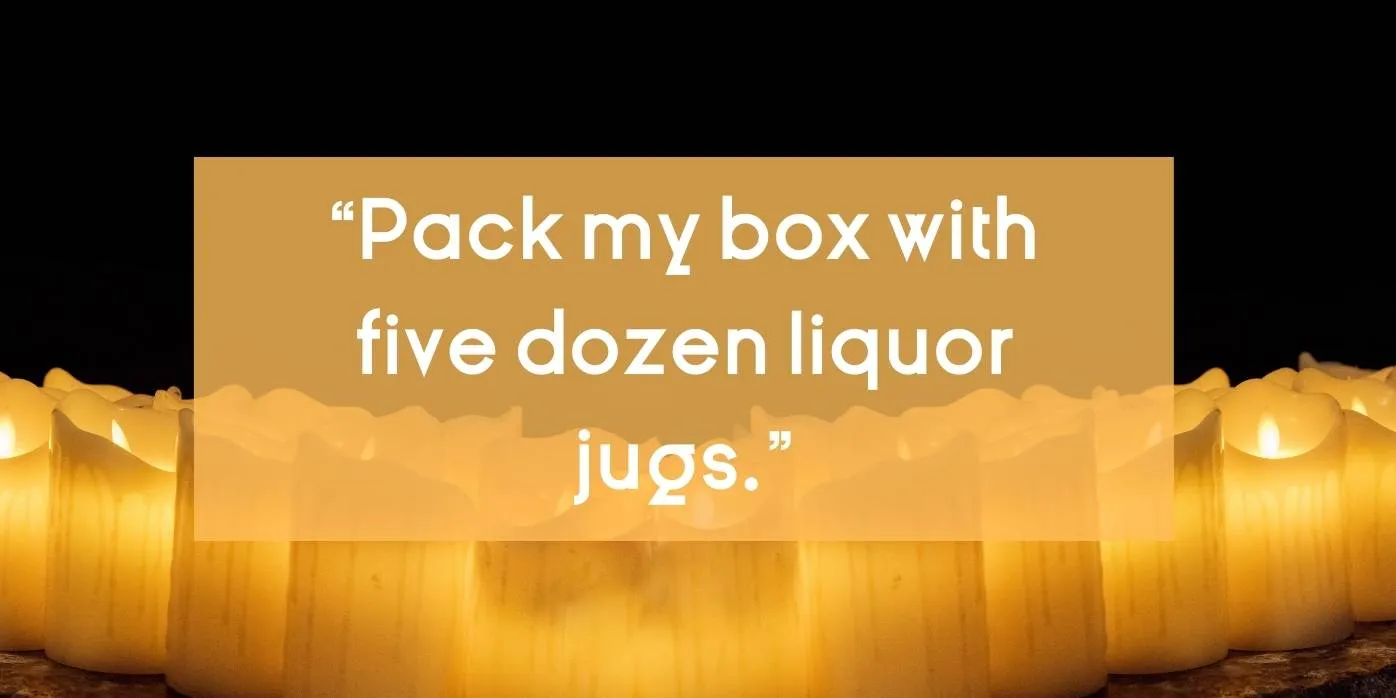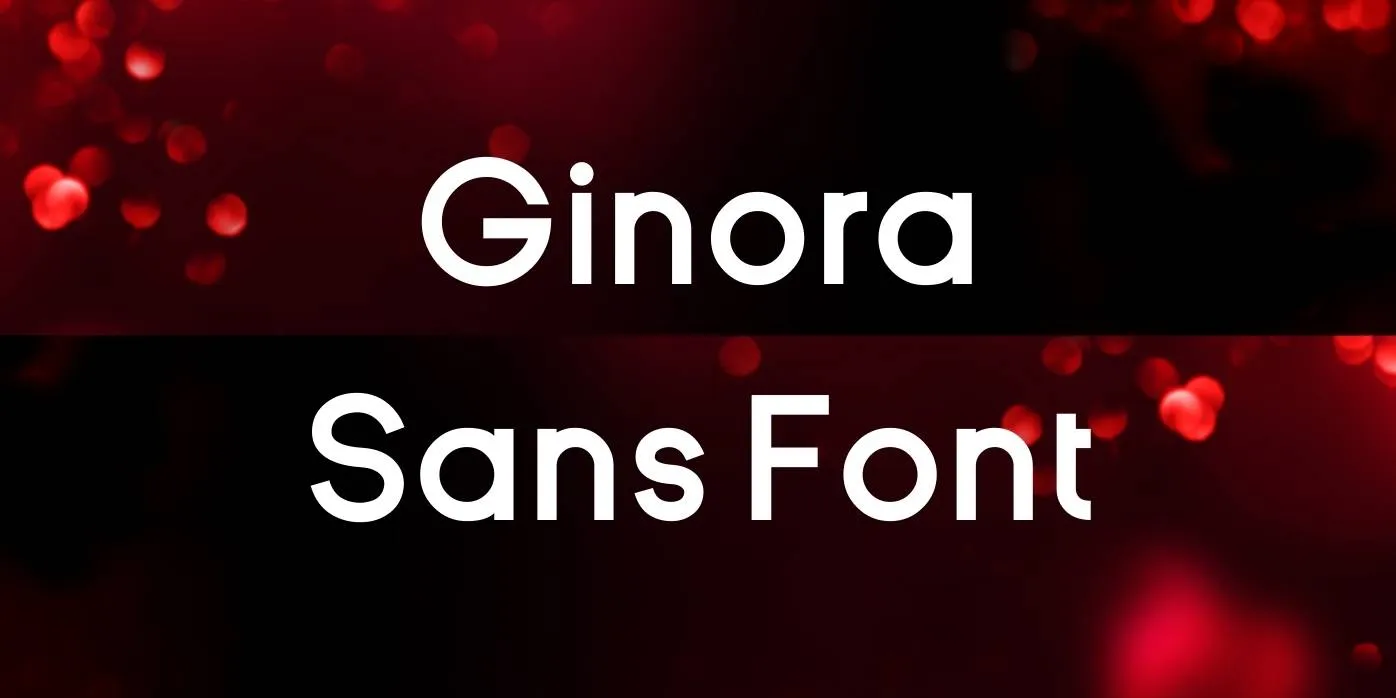
Ginora Sans Font
Ginora Sans Font is a modern sans serif font that is perfect for body copy. This classic typeface was designed by Matheus Gomes. This font is clean and simple but still has enough personality to make your text stand out. This amazing Font is available in both regular and italic styles, as well as a range of weights from light to bold.
It is well specified by CSS. Different graphics software has different default font choices. It is a great alternative to the default sans serif fonts like Arial Font and Helvetica Font. This fantastic Font would be perfect for any project that needs a modern, professional touch.
Its copy and paste are very suitable for different designs. Verlag Font is similar to this font family. This cute font is very popular due to its readability and also because it looks great on both digital and print media. This stylish Font has become one of the most popular fonts in the world and is used by some of the biggest brands.